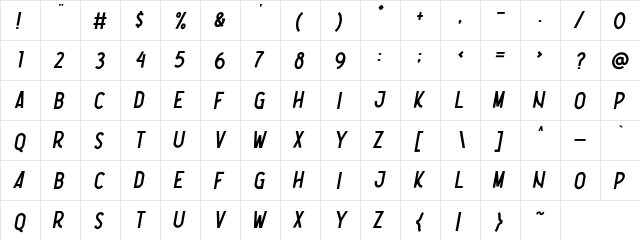
Nootdorp Italic
| Foundry | Garisman Studio |
| Designer | Risman Ginarwan |
Design Context for Nootdorp Typeface
Nootdorp is a composed and adaptable typeface that performs quietly and consistently across a wide range of design contexts. Its italic angle brings a sense of urgency and motion to the letterforms.
Pro Tip: Try Nootdorp for annotation and caption copy alongside an upright companion — the contrast in angle creates a dynamic but ordered typographic system.